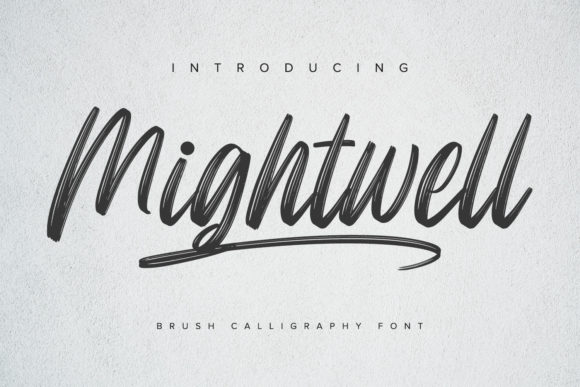
Unleash your creativity and let your designs dance with the captivating Mightwell Font, a remarkable handwritten typeface that oozes charm and personality. Crafted with a brush pen's delicate touch, Mightwell's strokes embrace the beauty of imperfection, resulting in a font that feels both authentic and playful.
Step into a world where elegance meets whimsy, where your designs will shine with a touch of uniqueness. Whether you're a seasoned designer or just starting your creative journey, Mightwell Font is your perfect companion, ready to elevate your projects to new heights.
With its enchanting script style, Mightwell Font effortlessly adds a personal touch to your designs. Its playful nature lends itself perfectly to logos, branding, social media posts, and any creative project where you want to make a statement. Imagine your designs adorned with Mightwell's graceful curves and charmingly imperfect strokes, captivating your audience with their captivating allure.
But Mightwell Font's magic doesn't stop there. Its versatility extends far beyond the digital realm, inviting you to explore a world of creative possibilities. Bring your crafty DIY projects to life with Mightwell's unique charm, transforming ordinary crafts into extraordinary works of art. Let your imagination run wild as you create personalized cards, stunning invitations, and heartfelt gifts that leave a lasting impression.
In a world saturated with uniformity, Mightwell Font stands as a beacon of individuality, inviting you to embrace the beauty of the handmade and the unique. Its carefully crafted strokes evoke a sense of nostalgia, reminiscent of handwritten letters and heartfelt messages. With Mightwell Font, your designs will carry a touch of warmth and authenticity that resonates with your audience, creating a connection that goes beyond the screen.